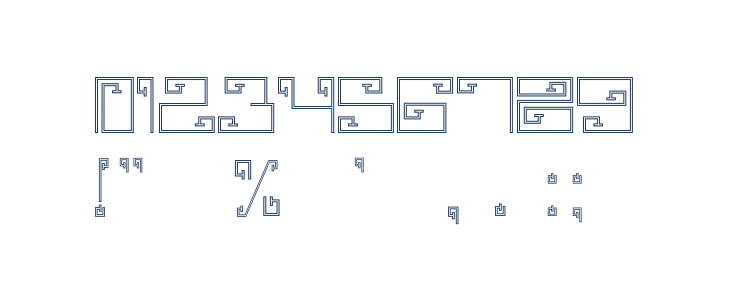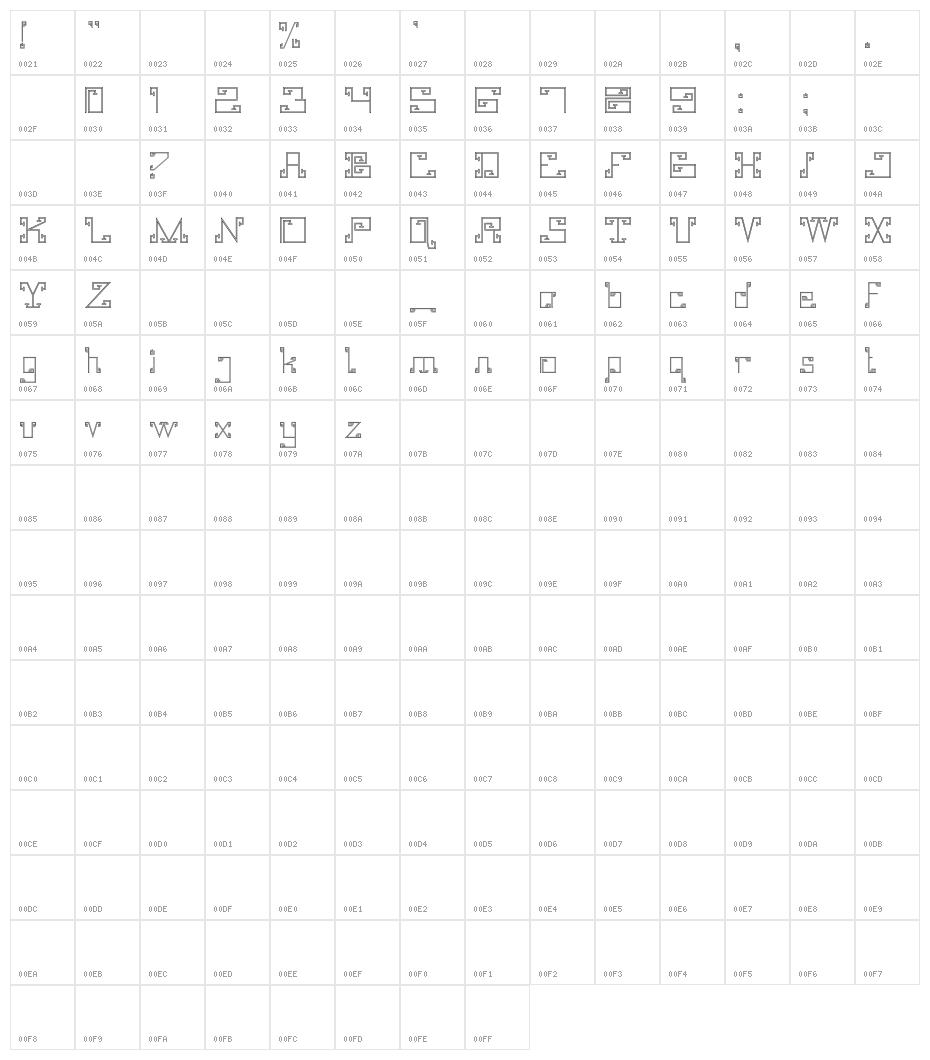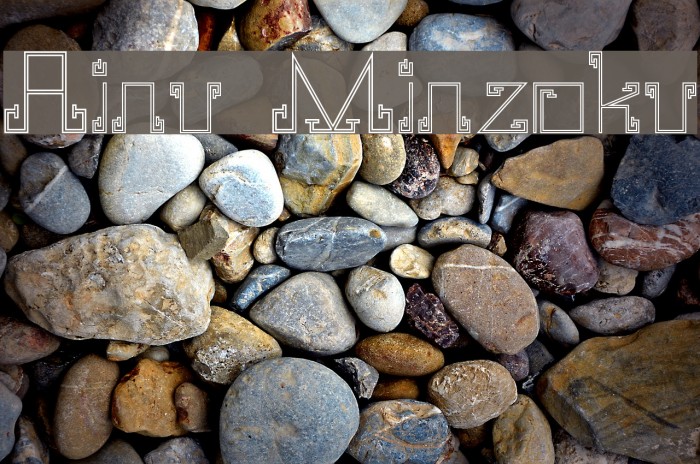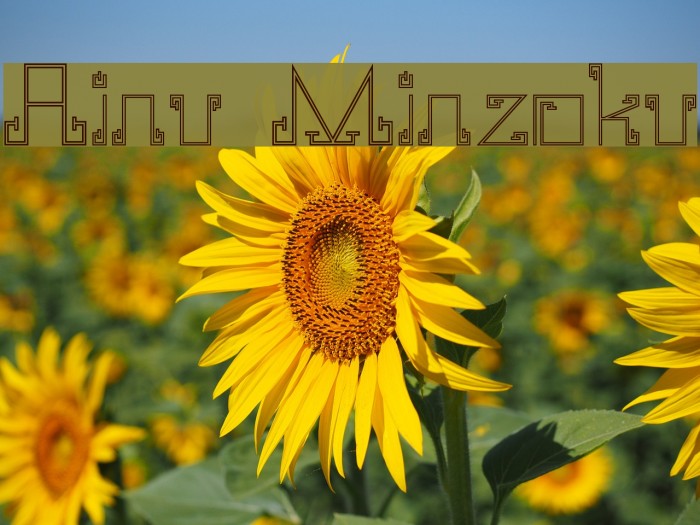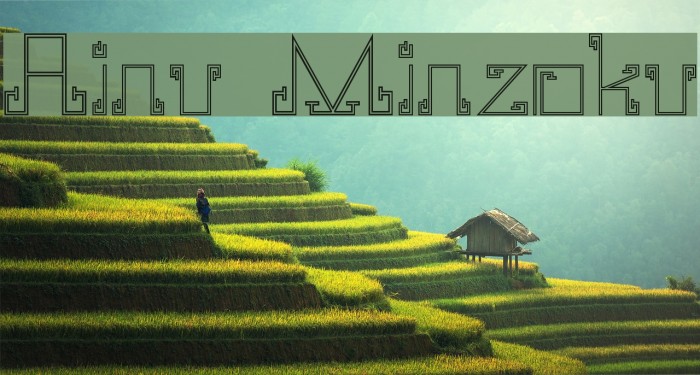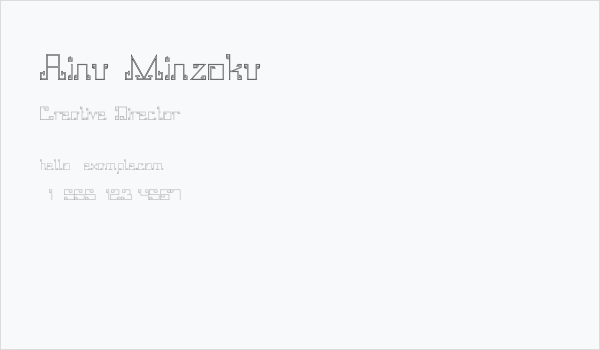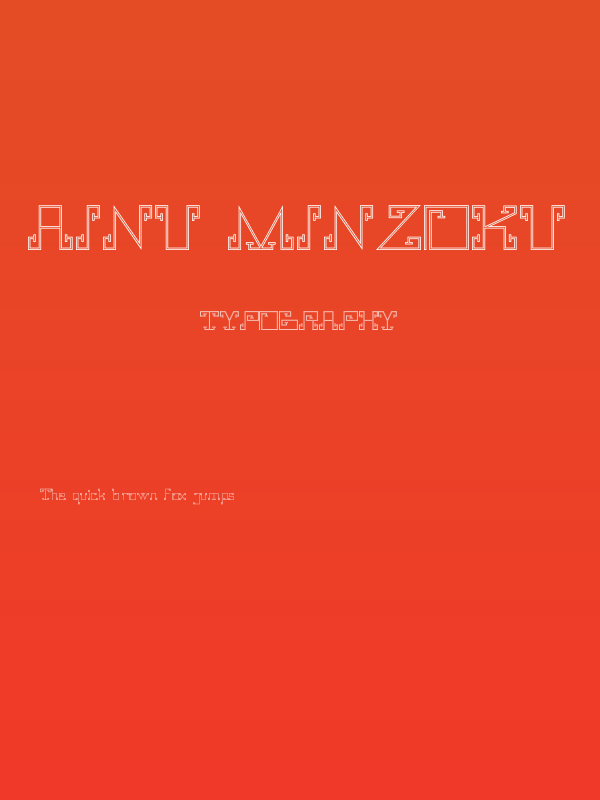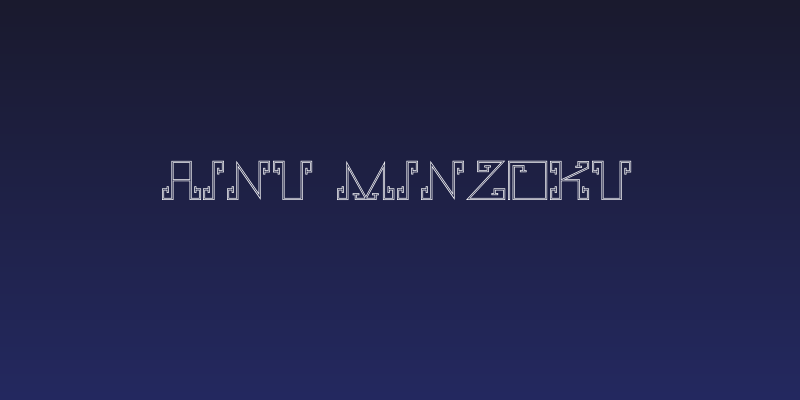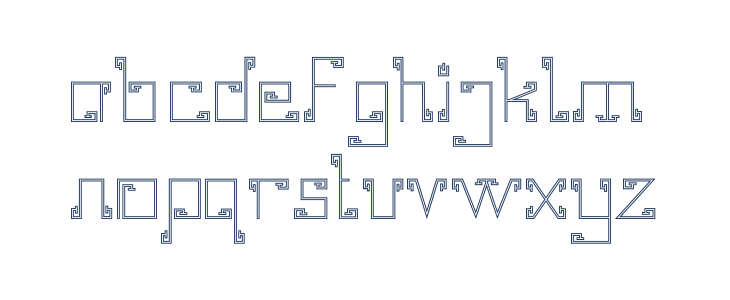
Ainu Minzoku Font
Ainu Minzoku Description
This font features a unique and intricate design with geometric patterns integrated into each character. The letters are constructed with a series of angular lines and corners, creating a maze-like appearance. Each character is distinct, with embellishments that resemble ancient or tribal motifs, giving it a decorative and artistic flair. The uppercase and lowercase letters maintain a consistent style, while the numbers and special characters follow the same intricate design, ensuring uniformity across the font. This font's complexity and ornamental nature make it stand out, offering a visually captivating experience.
| Proposed Projects | Ideal for cultural or historical themed projects, artistic posters, unique branding, or decorative titles. |